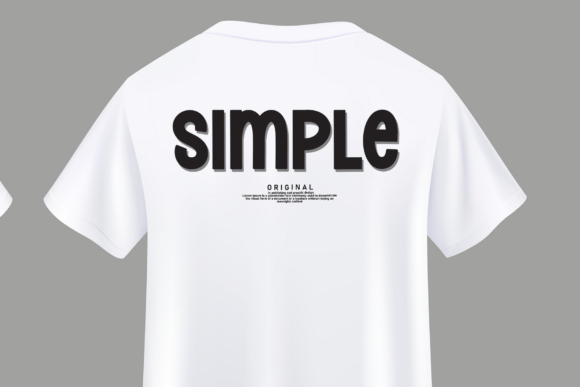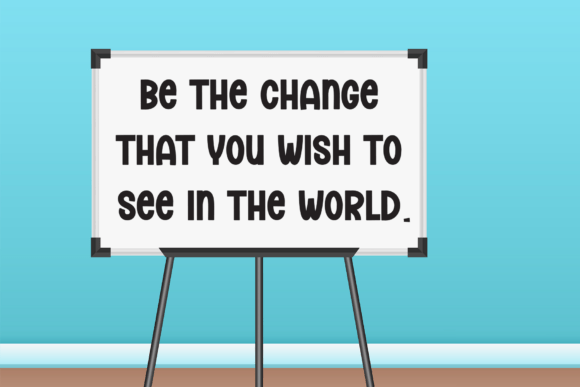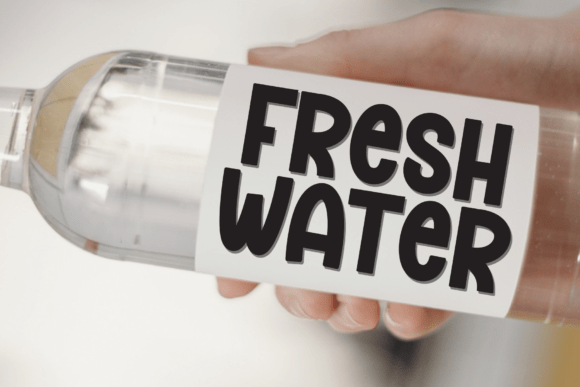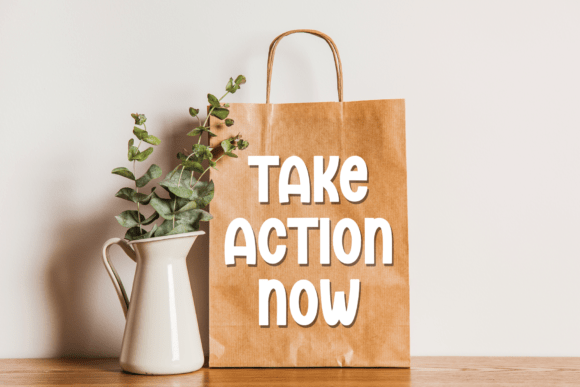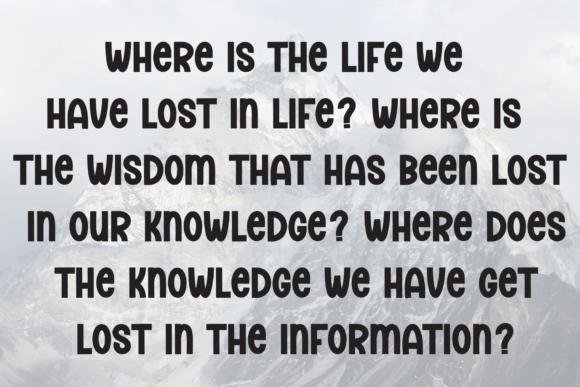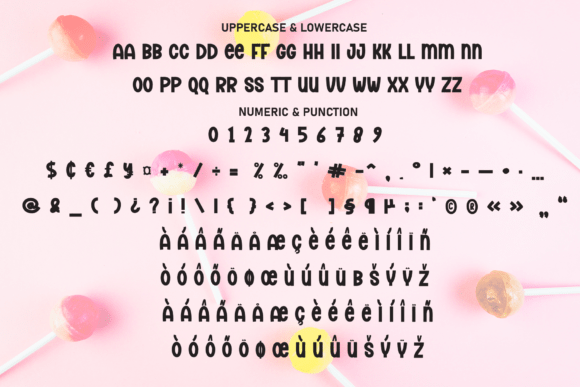
Candy Chubby Font: The Sweetest Addition to Your Design Projects
Are you looking for a font that can add a touch of playfulness and whimsy to your design projects? Look no further than the Candy Chubby Font! This engaging and charming handwritten display font is overflowing with delightful sweetness, making it the perfect addition to any design endeavor that craves a fun and friendly vibe.
What is Candy Chubby Font?
Candy Chubby Font is a carefully crafted handwritten display font that is designed to bring a sense of fun and playfulness to your design projects. With its charming and sweet design, this font is perfect for embellishing wedding invitations, crafting lovely cards, or enriching any other design endeavor that requires a touch of whimsy.
Key Features of Candy Chubby Font
- Handwritten Design: Candy Chubby Font features a beautiful handwritten design that is both charming and engaging.
- Playful and Whimsical: This font is perfect for designers and crafters who want to add a touch of playfulness and whimsy to their projects.
- Delightful Sweetness: The font’s design is overflowing with delightful sweetness, making it perfect for projects that require a friendly and approachable vibe.
- Versatile: Candy Chubby Font can be used for a wide range of design projects, from wedding invitations and cards to posters and social media graphics.
Candy Chubby Font is perfect for designers and crafters who want to add a touch of personality to their projects. Whether you’re creating wedding invitations, crafting lovely cards, or designing social media graphics, this font is sure to bring a smile to your audience’s face. With its playful and whimsical design, Candy Chubby Font is the perfect way to add a touch of fun and friendliness to your projects.
- Pair with Other Fonts: Candy Chubby Font pairs perfectly with other fonts, such as sans-serif fonts or script fonts.
- Use for Headings: This font is perfect for headings and titles, but can also be used for body text for a more playful look.
- Experiment with Colors: Candy Chubby Font looks great in a variety of colors, from bright and bold to pastel and soft.
Benefits of Using Candy Chubby Font
There are many benefits to using Candy Chubby Font in your design projects. Here are a few:
- Adds a Touch of Personality: This font adds a touch of personality and whimsy to your projects, making them stand out from the crowd.
- Perfect for Wedding and Party Designs: Candy Chubby Font is perfect for wedding invitations, party invitations, and other celebratory designs.
- Easy to Read: Despite its playful design, Candy Chubby Font is easy to read and understand, making it perfect for body text and headings.
In conclusion, Candy Chubby Font is a charming and engaging handwritten display font that is perfect for designers and crafters who want to add a touch of playfulness and whimsy to their projects. With its delightful sweetness and friendly design, this font is sure to bring a smile to your audience’s face. Whether you’re creating wedding invitations, crafting lovely cards, or designing social media graphics, Candy Chubby Font is the perfect addition to your design projects.